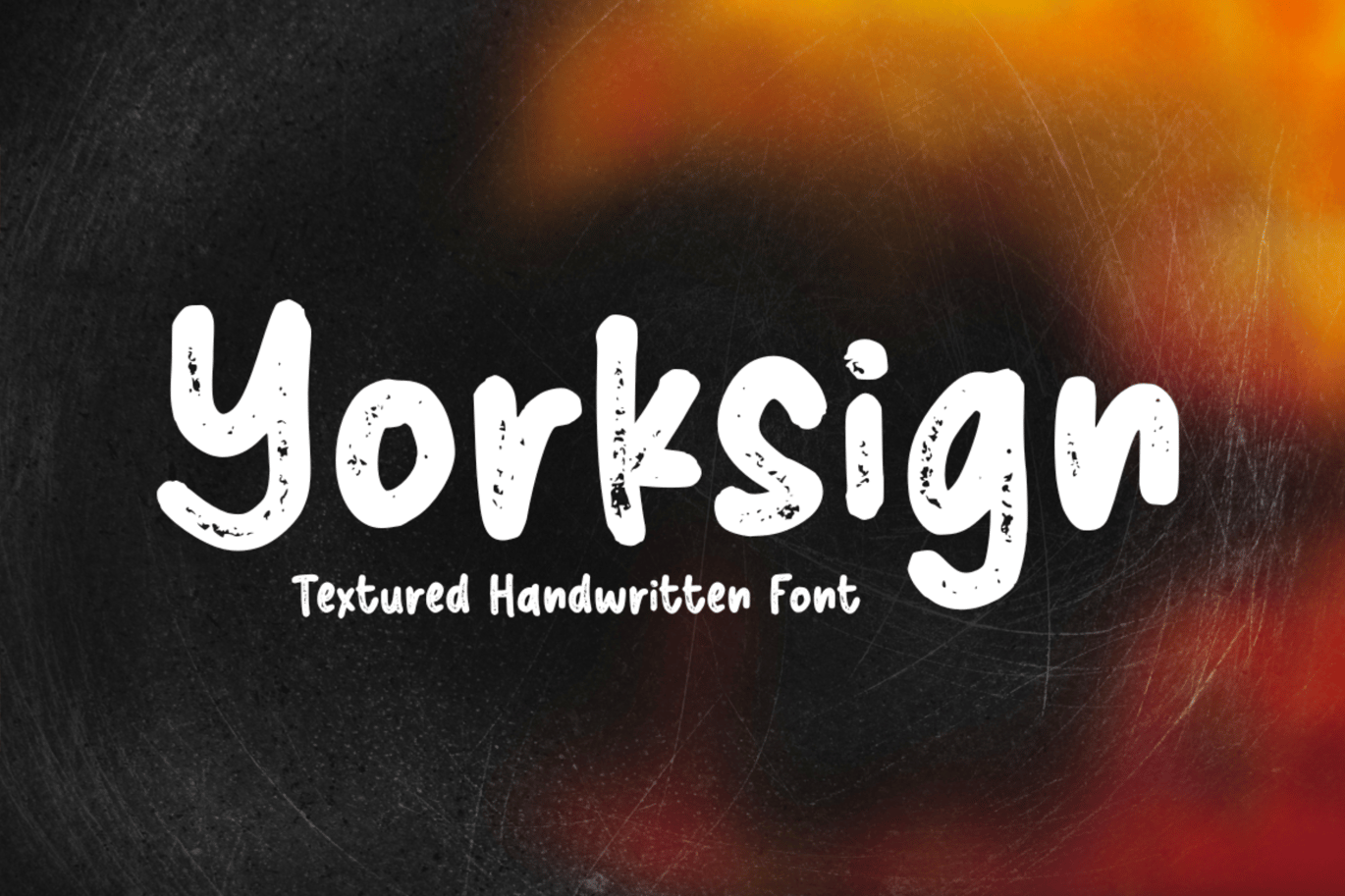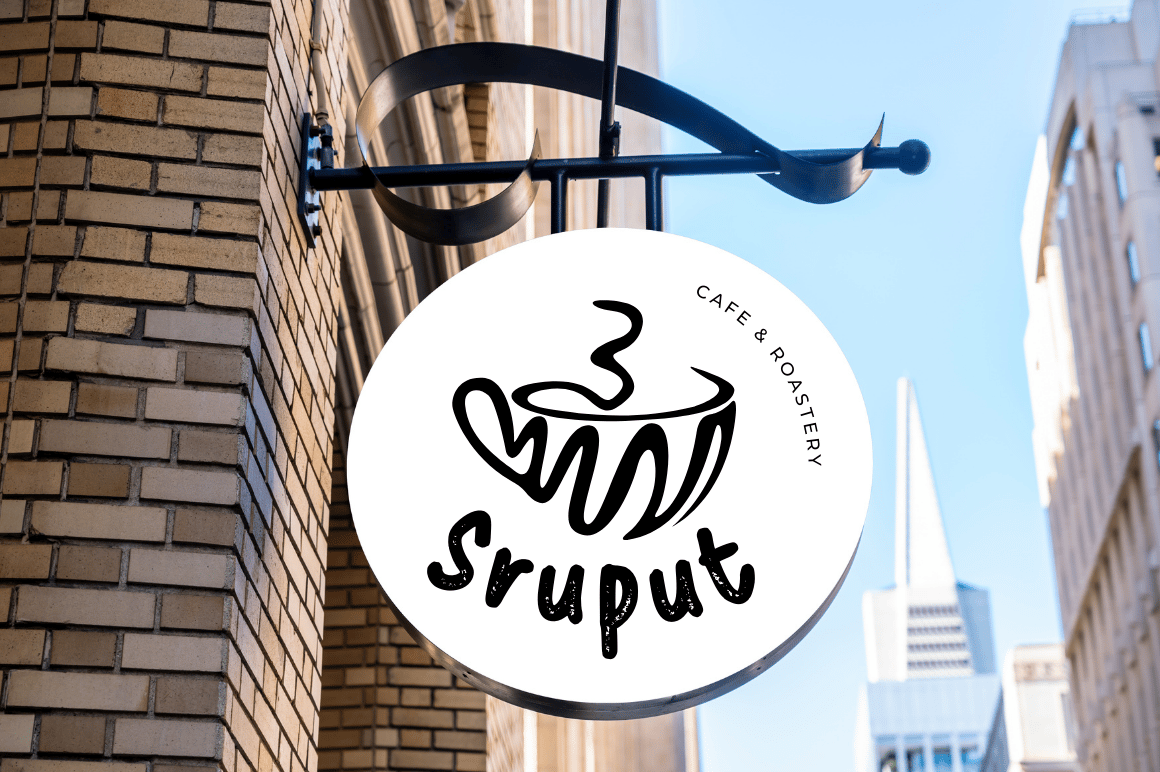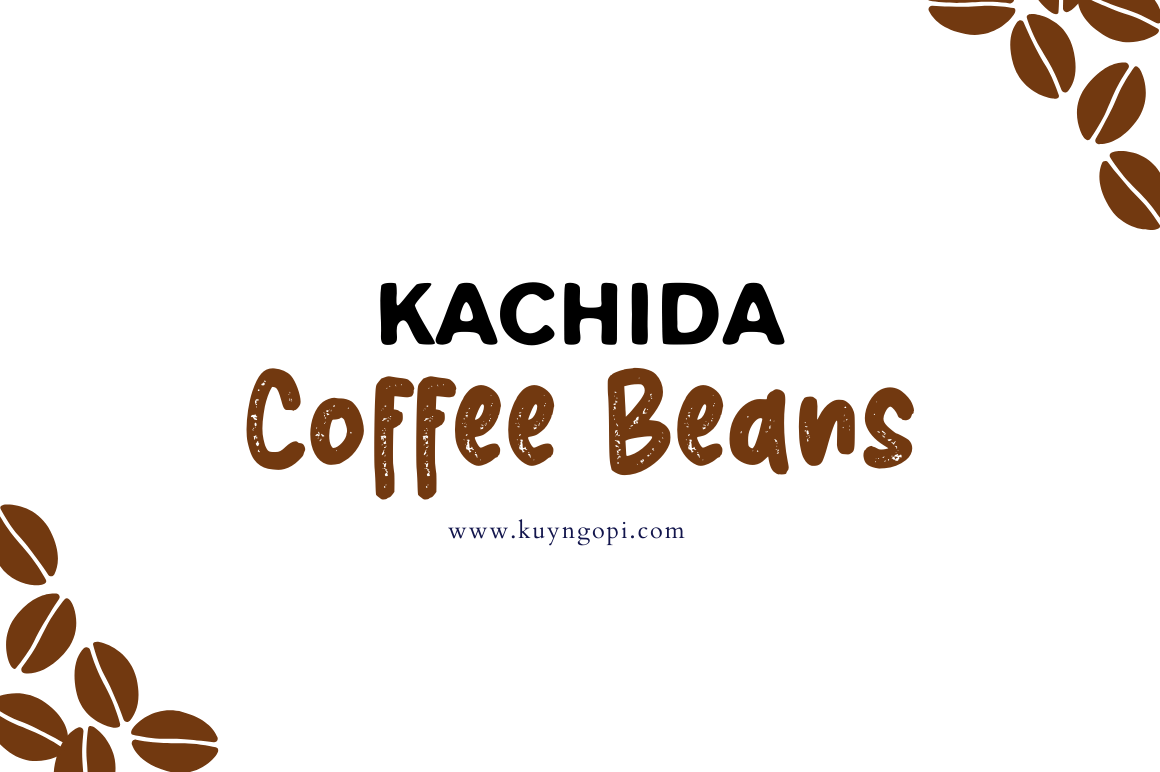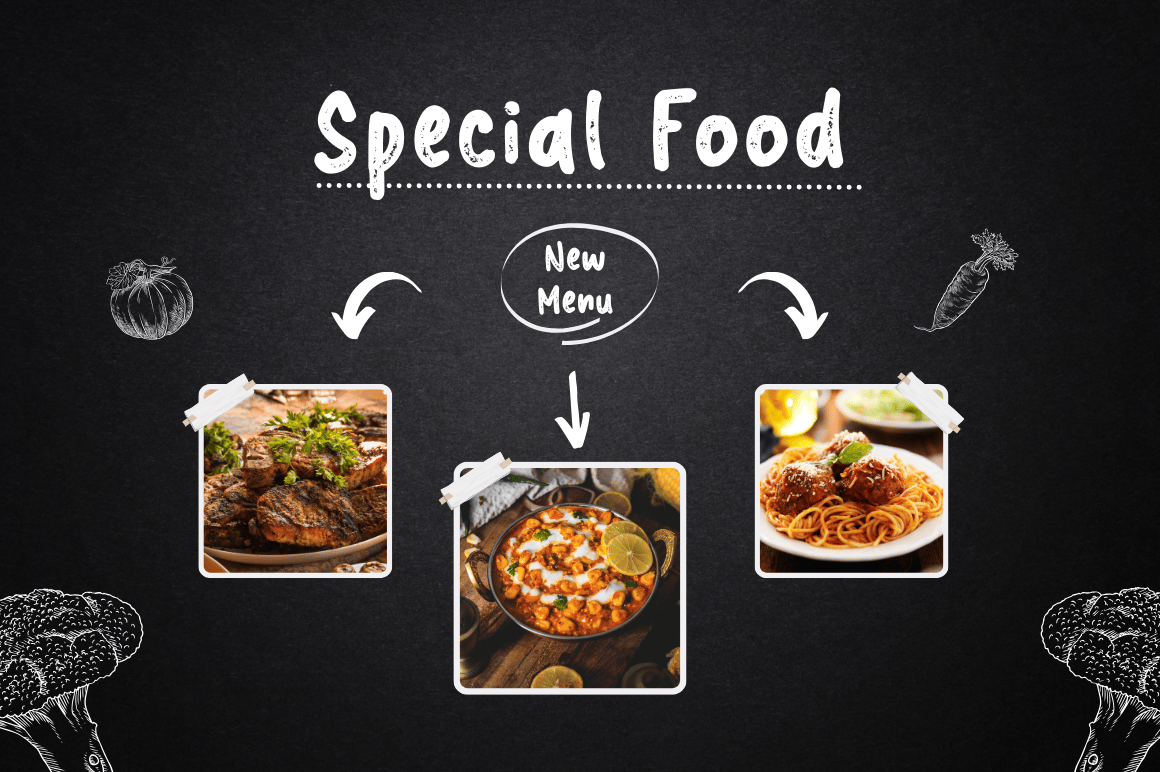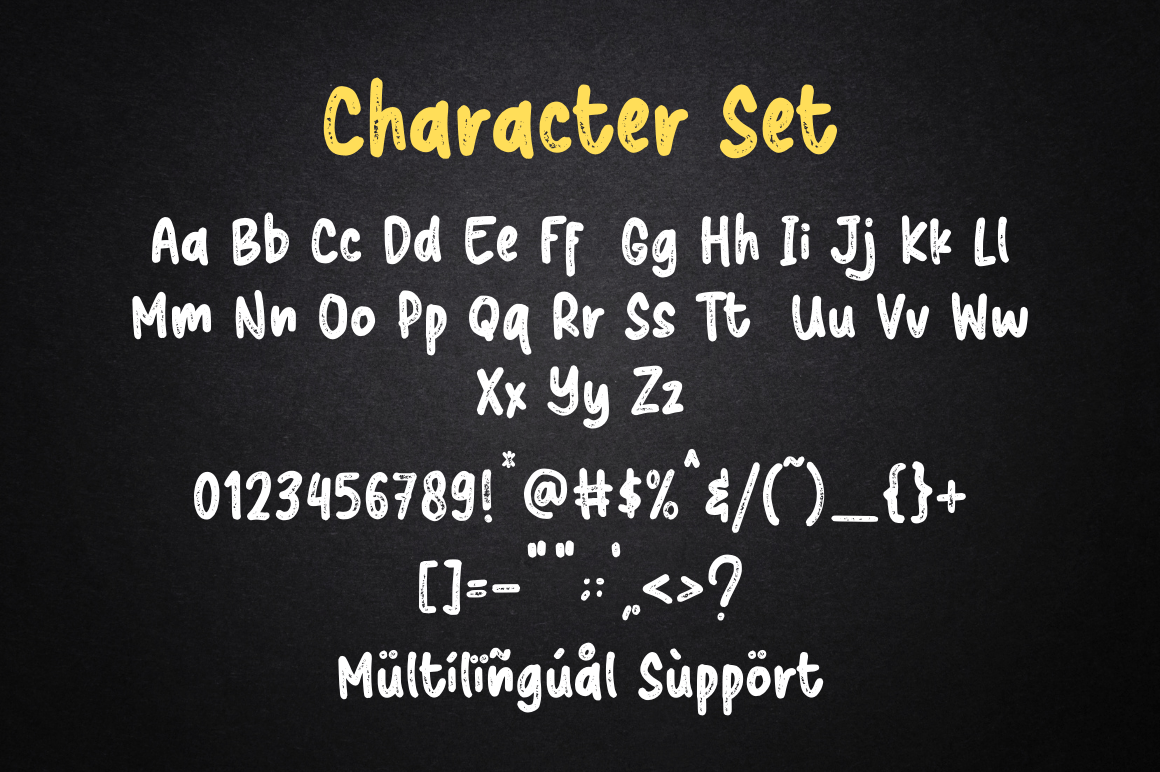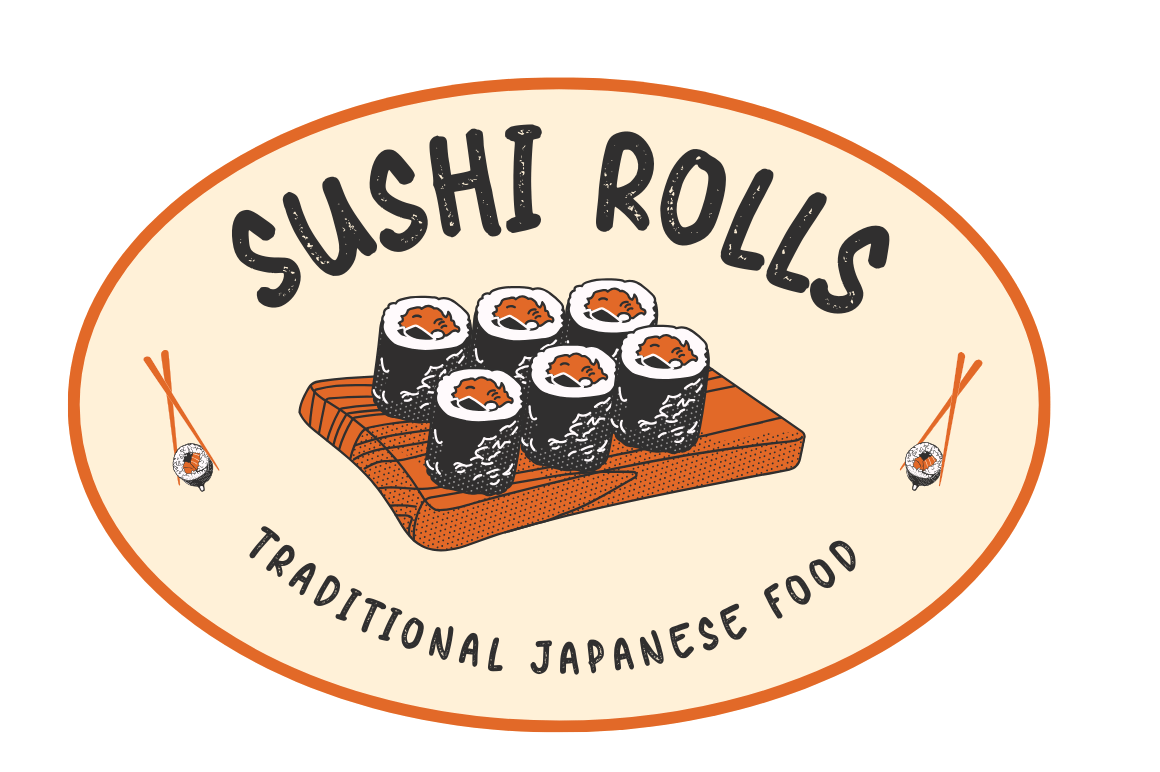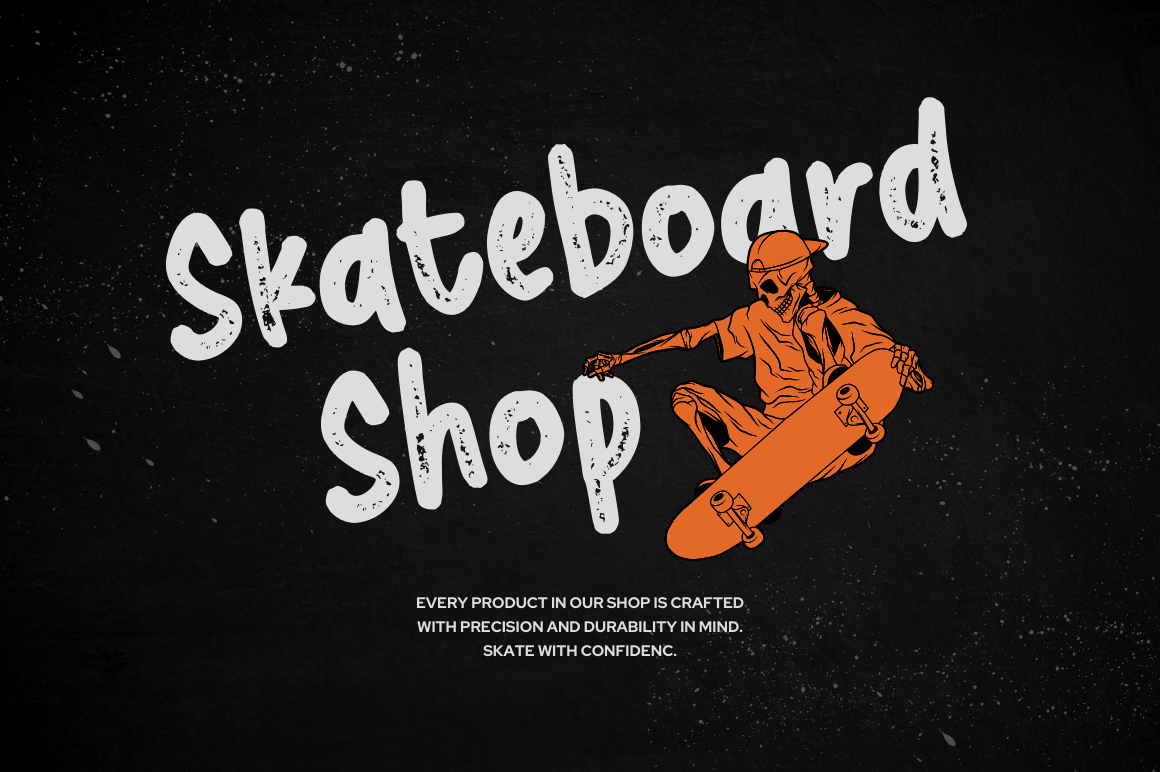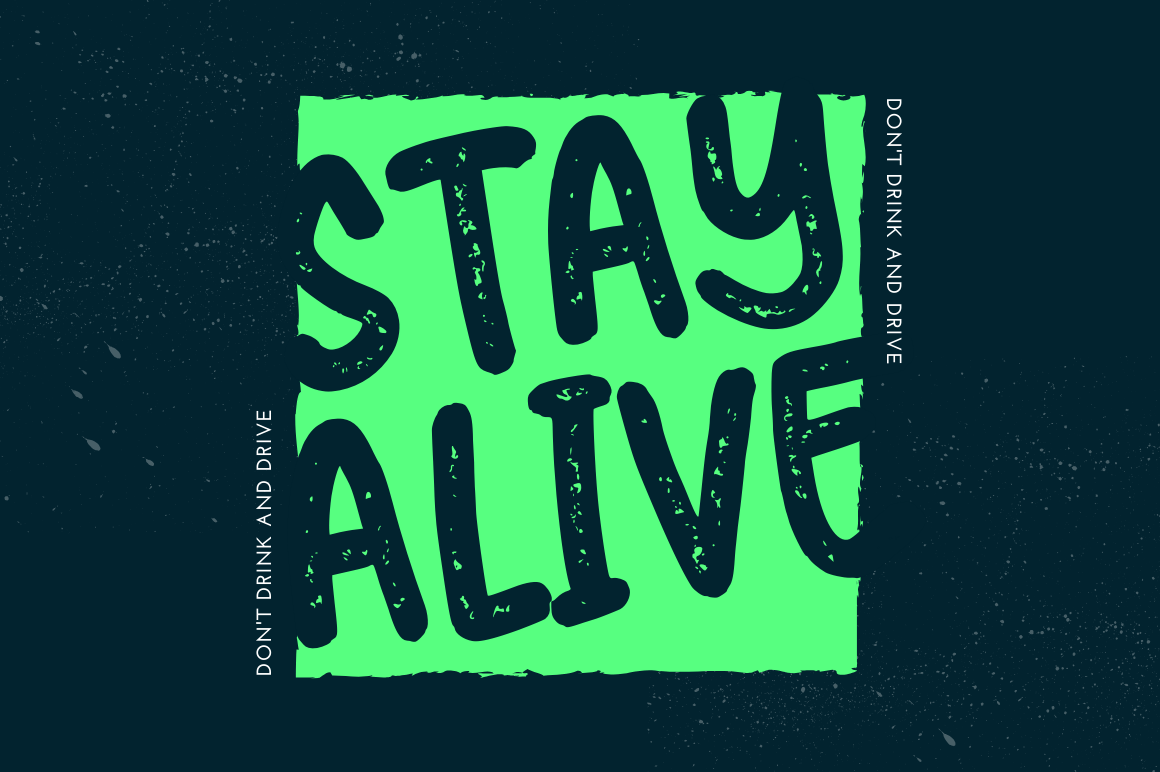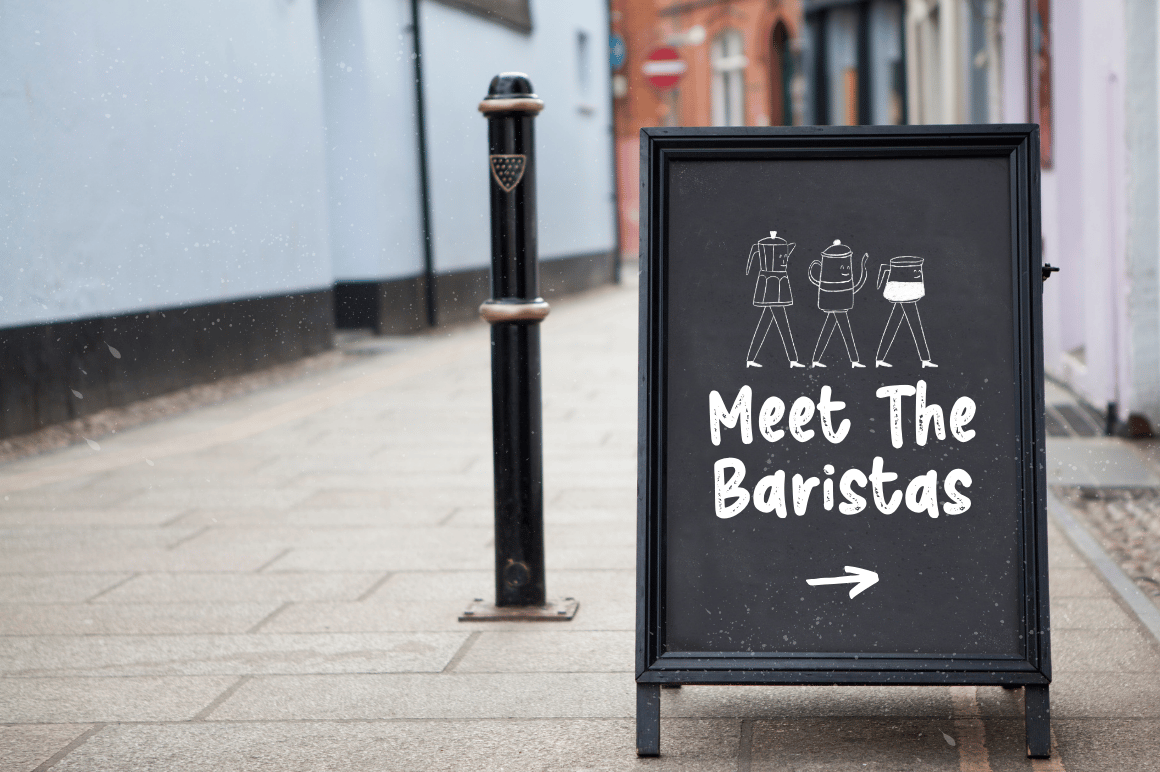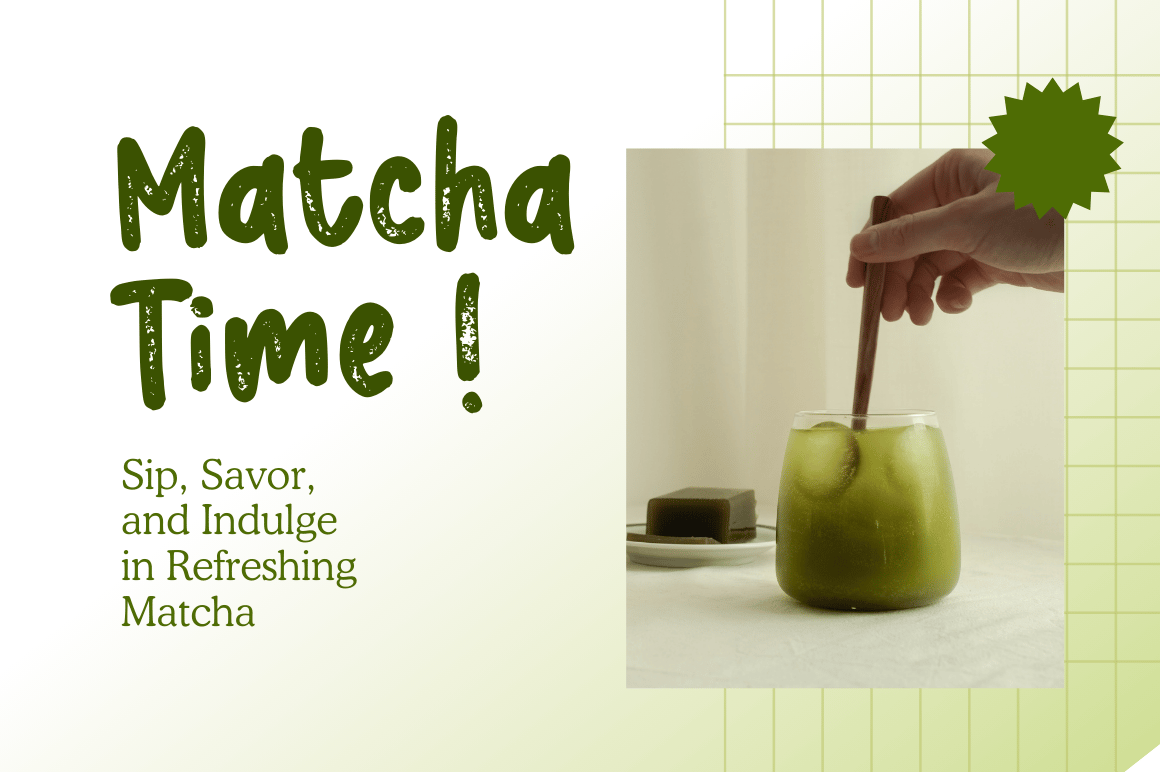
Yorksign – Textured Font
Introducing “Yorksign,” a textured handwritten font that adds depth and personality to your designs. With its rough edges and authentic feel, this font captures the organic essence of handwritten text. Perfect for projects that seek a natural and rustic vibe, such as posters, packaging, or branding materials. “Yorksign” infuses your designs with a unique texture and character, making them stand out with a touch of handmade charm.
- Uppercase & lowercase letters
- Numerals & punctuation